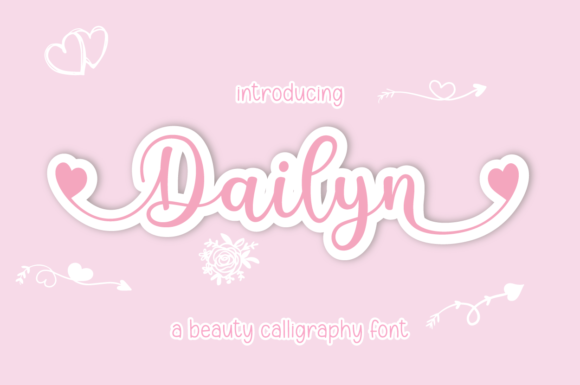
Unveil the charm of handwritten elegance with Dailyn Font, a mesmerizing script font crafted by T & G Type, designed to bring an authentic, personal touch to your creative projects. Immerse yourself in the world of expressive typography where Dailyn's friendly aura shines, making it an incredibly versatile font, effortlessly adapting to a multitude of contexts.
With Dailyn, your words take on a life of their own, flowing with grace and fluidity. Experience the joy of effortless customization, as Dailyn's PUA encoding grants you seamless access to a treasure trove of glyphs and swashes, empowering you to add a touch of individuality and flair to your designs.
Picture your brand's logo adorned with Dailyn's elegant curves, leaving an unforgettable impression on your audience. Envision social media posts and marketing materials infused with Dailyn's charm, captivating attention and sparking conversations.
Dive into the realm of handwritten invitations, greeting cards, and wedding stationery, where Dailyn's presence elevates the ordinary into the extraordinary. Let your imagination run wild as you create stunning posters, flyers, and brochures that radiate with personality and warmth.
Dailyn's versatility extends to the digital realm, where it shines on websites and blogs, effortlessly enhancing user experience. Its ability to evoke emotion and create lasting impressions makes it the perfect choice for crafting email campaigns that resonate with recipients.
Embrace the timeless beauty of Dailyn Font, a script font that transcends trends, effortlessly blending with a myriad of design styles. Its friendly personality and wide range of applications make it a must-have for designers, crafters, and creative entrepreneurs seeking to leave a lasting impact.